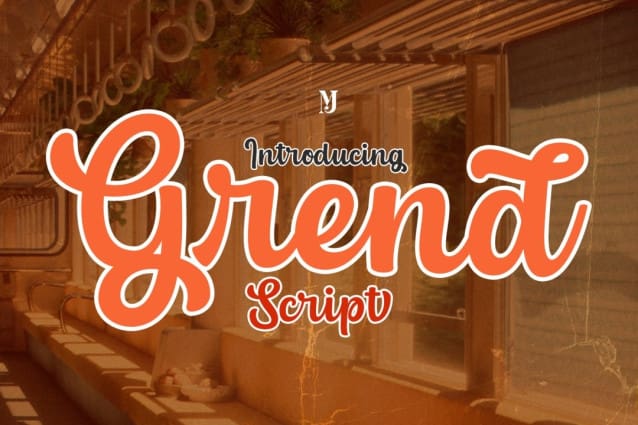
Grend Retro Font
Grend Retro Font is perfect for vintage and retro designs, badges, logos, t-shirts, posters, branding, packaging, signs, book covers and more!